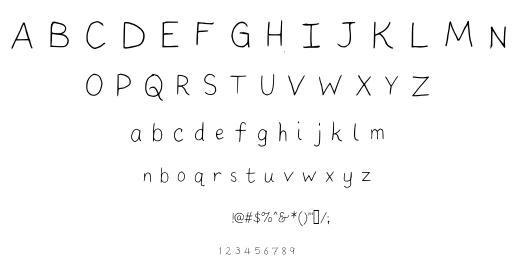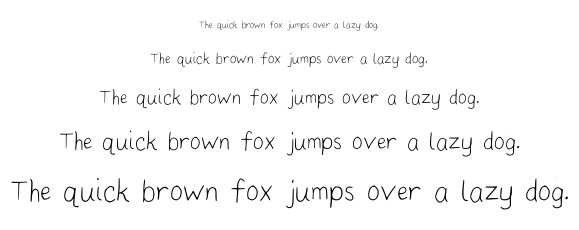
Pupil Light is an excellent 455 character font, excellent for both classroom and home-schooling use. Pupil Light was the first go at a classroom font by SWMCA Catalogs, going back to 1989. It is based off the Slimline Regular font (later to be renamed Basic), SWMCA’s first font. For a “cleaner” presentation SWMCA recommends using the bold selection in your computer programs. This is due to the fact that the original drawings from 1989 were used and then digitized. A substantial amount of work was done on this font before Sept. 5 2014 when SWMCA became unionized, therefore it is presented as a non-union work. This will also be the last non-union font put out by SWMCA. There are more fonts coming as part of the Pupil font family see note below. The Pupil fonts are part of the SWMCA Schoolhouse line even-though “schoolhouse” is not in the name.